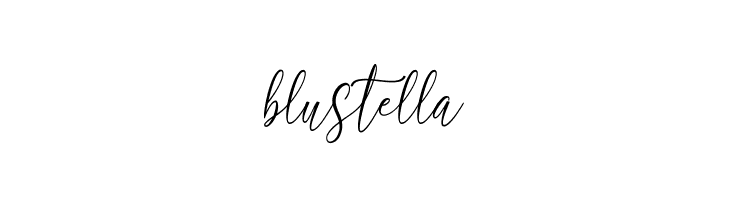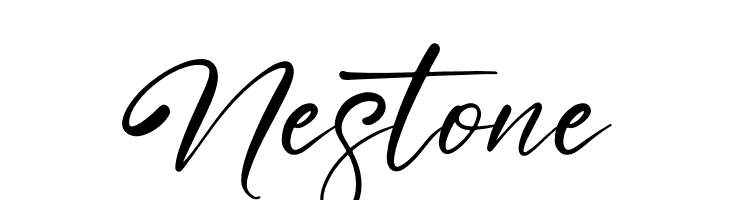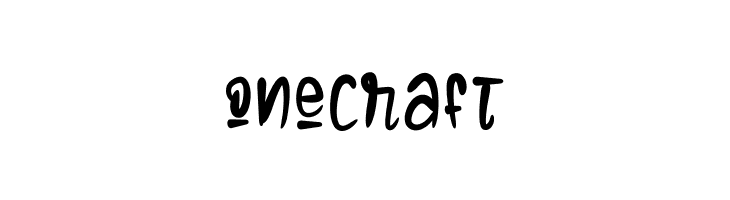
A playful, handwritten font with rounded edges and a casual style.
A modern, italic font with smooth curves and consistent stroke width.
A sleek, modern, and oblique font with a light weight and streamlined design.
A bold, playful font with a modern and approachable style.
A playful, bold sans-serif font with characters enclosed in circles.
A graceful script font with fluid, cursive strokes and elegant curves.
A bold, 3D italic font with outlined characters and a modern, geometric style.
A bold, rounded font with a playful and friendly style.
A dynamic, angular font with a modern, edgy style.
A bold, brush-style font with dynamic, hand-painted strokes.
设计师偏爱 Unicorn Toys, Typo Ring Demo Italic, Hyperjump Light Oblique, Delninoys and Dalgona Candy,因为其造型干净、适用范围广—— 从品牌识别到落地页、海报都能胜任。